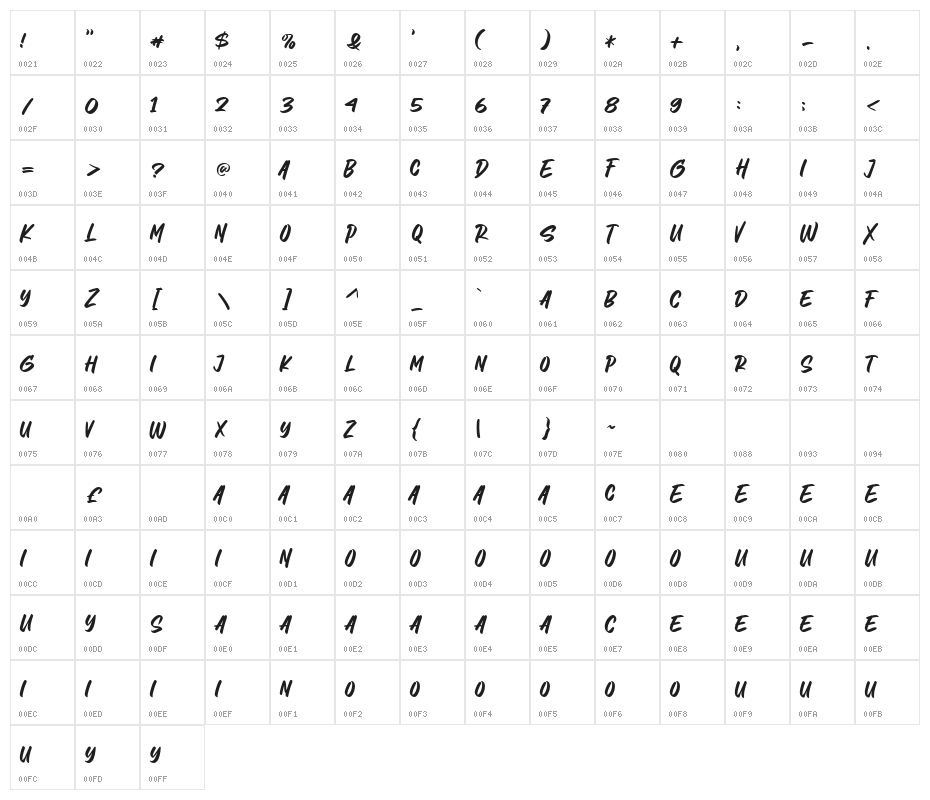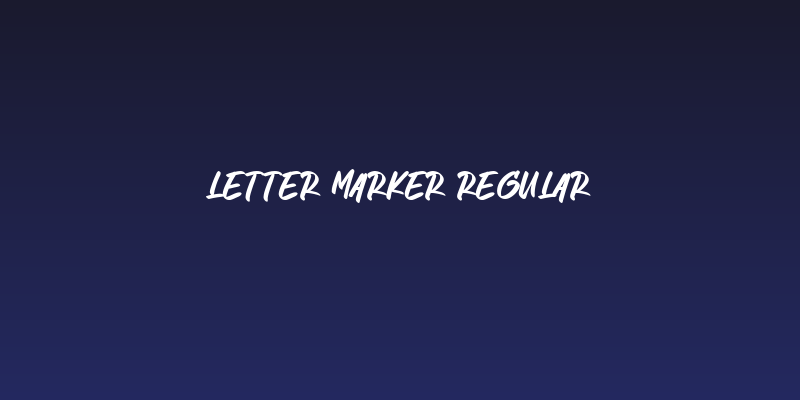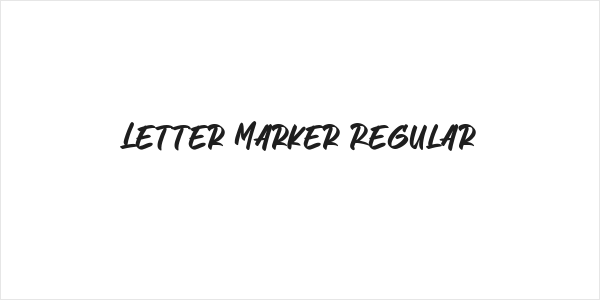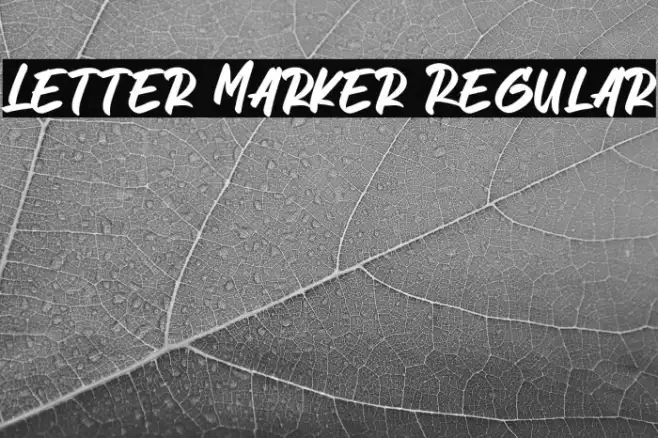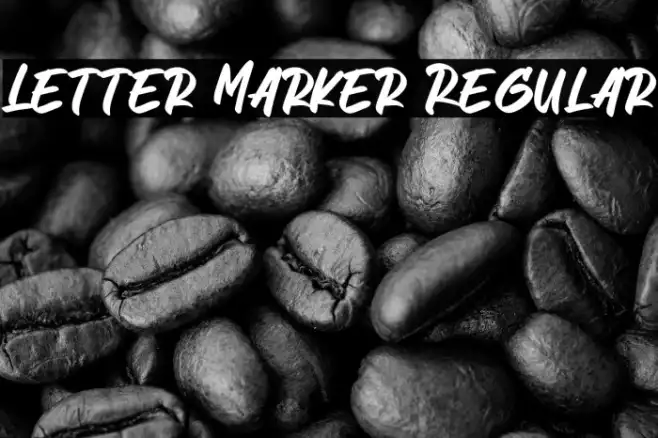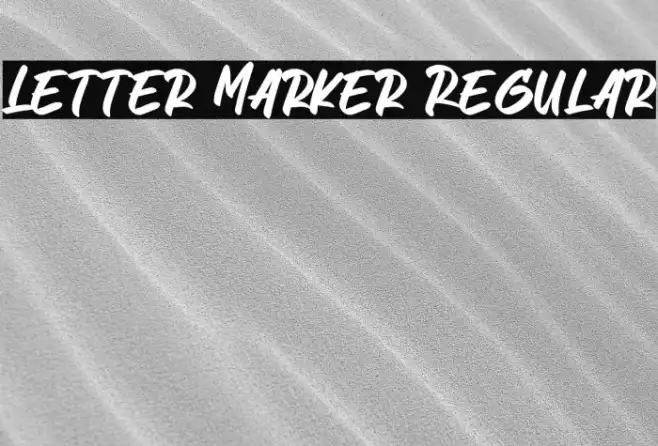
Letter Marker Regular Font
Letter Marker Regular Description
This font features a bold and dynamic handwritten style, characterized by its fluid and energetic strokes. The letters are slightly slanted, giving a sense of movement and spontaneity. The uppercase and lowercase letters maintain a consistent style, with rounded edges and a smooth flow between characters. The numbers and special characters are designed to match the overall aesthetic, ensuring a cohesive look across all text elements. This font is ideal for projects that require a personal touch, such as invitations, greeting cards, or branding materials that aim to convey a friendly and approachable tone.
| Proposed Projects | Ideal for invitations, greeting cards, branding materials, and any project needing a personal touch. |